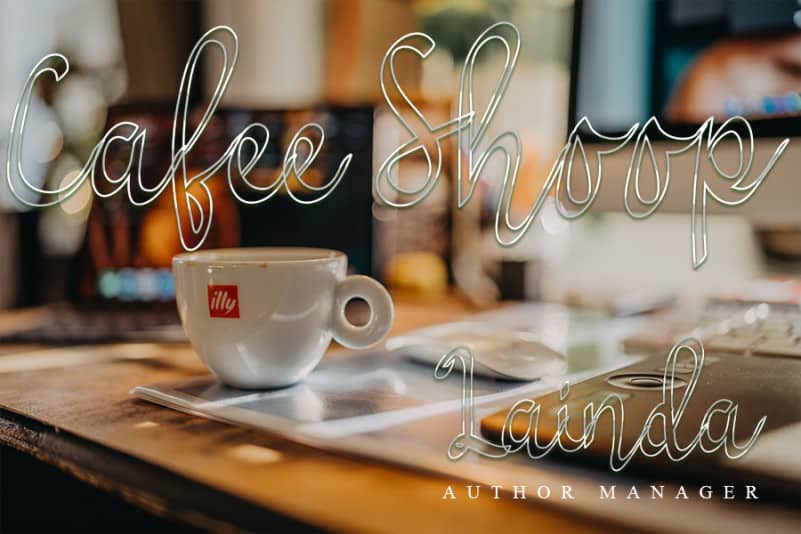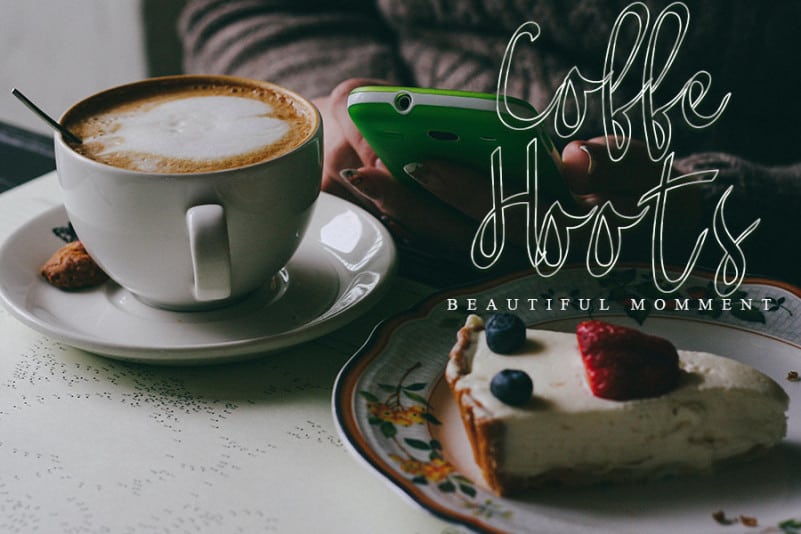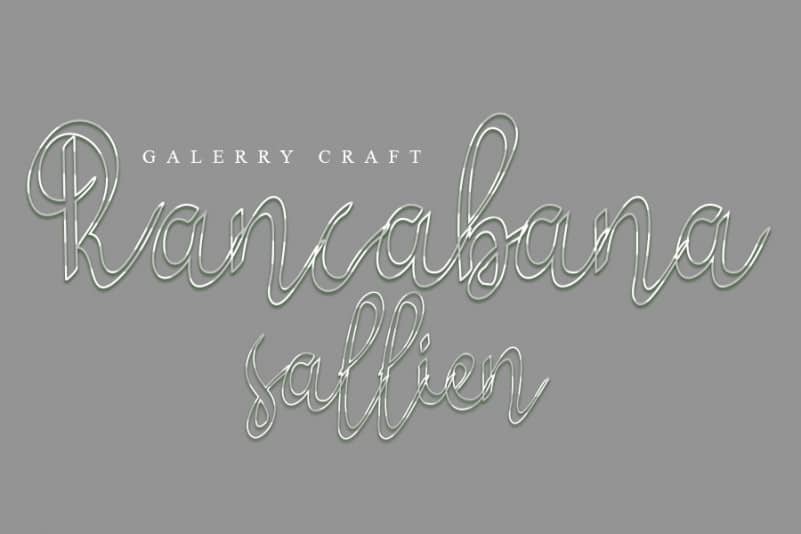
Sukury Script Font
Sukury Script Font is a charming Calligraphy font. It is designed using a stroke as its border. Syukury will look stunning on wedding invitations, thank you cards, quotes, greeting cards, logos, business cards and every other design which needs a handwritten touch.